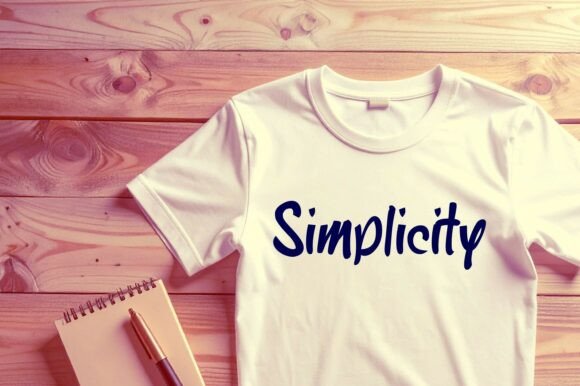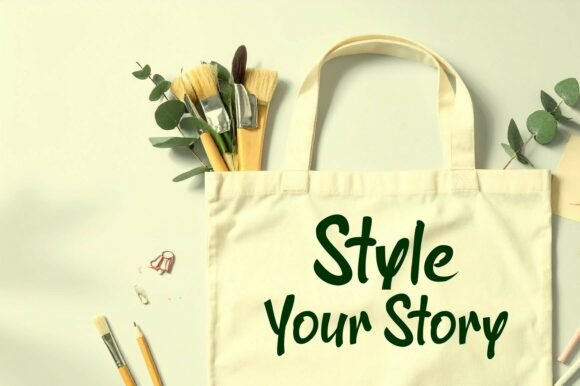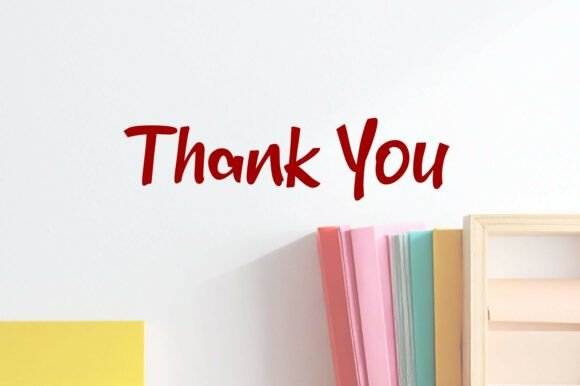
A New Dimension of Typography
Have you ever found yourself stuck in a design rut, yearning for that one element to elevate your creative project from ordinary to extraordinary? Perhaps you’re brainstorming ideas for a fashion brand or a lifestyle magazine, but the perfect font to capture your vision continues to elude you.
This is where the Aksentuasi Font comes in – a masterfully crafted typeface that injects a touch of organic charm and personality into your designs. Its fluid strokes and subtle imperfections create a visually striking contrast to the rigid, structured fonts that dominate the design landscape. As a result, Aksentuasi Font offers designers a unique opportunity to infuse their work with a human touch, perfect for conveying the essence of artisanal products, fashion labels, or social media campaigns.
Aksentuasi Font Key Features
- Unique Characteristics: Features a distinctive, hand-drawn aesthetic with subtle texture and nuance, adding a touch of personality to any design.
Aksentuasi Font Review
I recently had the chance to work with the Aksentuasi font, and I must say it’s been an interesting experience. ✨ Here are some of the things that work well:
- Unique Character: The Aksentuasi font has a distinctive look that can add a touch of sophistication to your designs.
- Readability: The font is surprisingly legible, even at smaller font sizes, which is a major plus in my book.
- Cultural Significance: The font’s design is inspired by traditional Indonesian typography, making it a great choice for projects that require a touch of cultural authenticity.
However, there are also some limitations to consider ⚠️:
- Limited Font Variations: While the font looks great, it’s not a particularly versatile option. You may find yourself limited to a single style or weight.
- No Ligatures: I found that the font didn’t include ligatures, which can make it look a bit rough at times.
- Not Suitable for Body Text: Due to its unique design, I wouldn’t recommend using Aksentuasi for body text. It’s better suited for headings or titles.
Overall, I’d say the Aksentuasi font is a solid choice for designers who want to add a bit of flair to their projects. While it’s not perfect, its unique character and cultural significance make it a great option for the right project.
Aksentuasi Font is ideal for creating eye-catching headlines, titles, and accents in your designs. Use it to add a unique touch to your branding, marketing materials, and digital products.
- Creating a bold and playful headline for a marketing campaign.
- Adding a decorative touch to a product label or packaging.
- Designing a custom logo or icon with a unique font style.